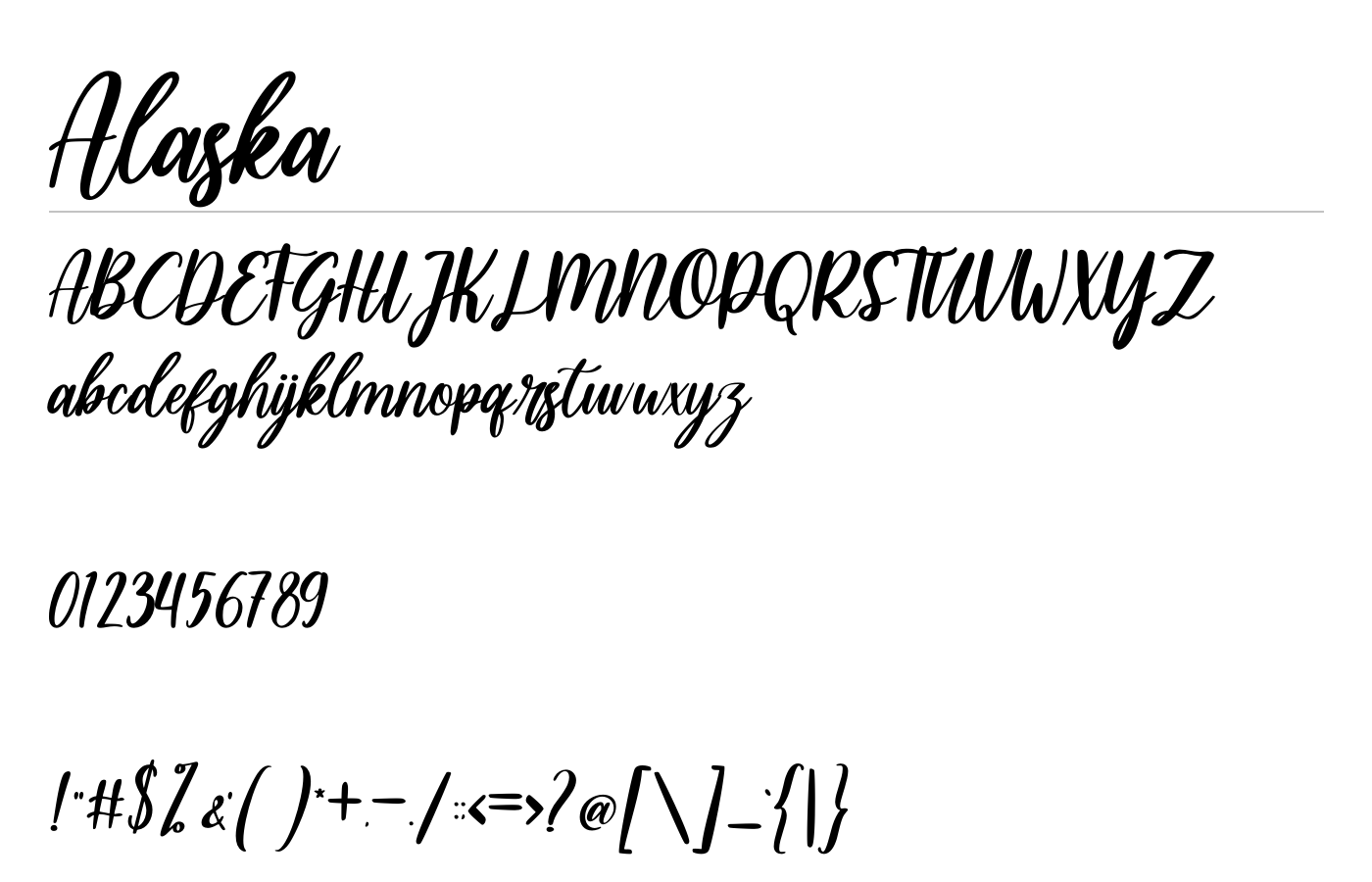
Alaska is a stylish script font with a smooth, flowing design that combines elegance with a casual, handwritten feel. Its medium weight and tall x-height create legible, airy letterforms that work well for personal branding, invitations, and creative headlines, giving a warm and approachable yet refined impression. This font is perfect for projects that want to convey charm and personality while maintaining a polished look.
Alaska Font
About Alaska Font